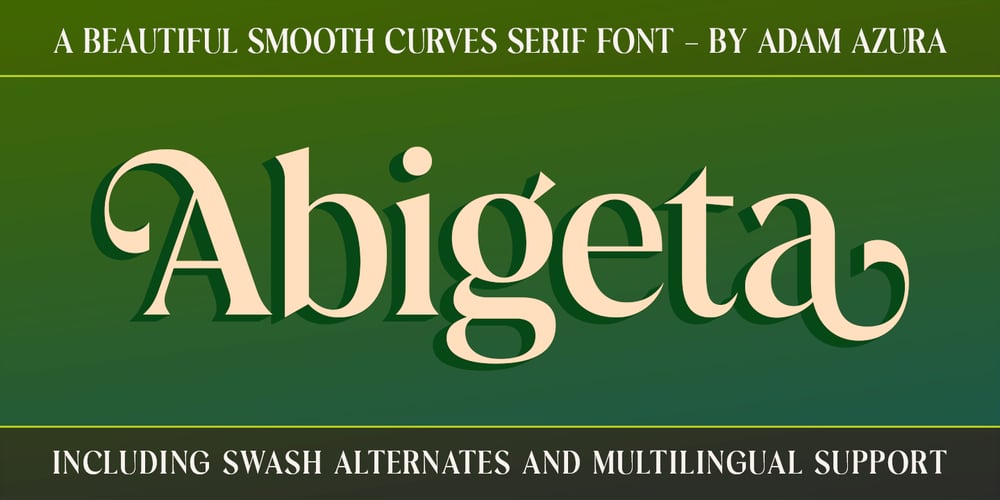
Abigeta Display
Abigeta Display font
Abigeta Display Font Family was designed by Rikie Decki Iskandar and published by Adam Azura. Abigeta Display contains 1 styles and family package options. Abigeta Display is sharp serif font with an elegant feel. Unique character by combining geometric shapes with organic curvy details. It is a unique typeface for your individual personality. Inspired by old-style serif and contemporary fonts. The extreme contrast between thick and thin strokes gives a harmonic and stylish look. Wide range of stylistic alternates allows versatile design options work perfectly for elegant branding, magazine design, logo design, headlines, posters, packaging, cards or your wedding invitation and more.Features:* Character set A-Z with special uppercase letters* Ligatures* Stylistic Alternates* Numerals & Punctuation* Multilingual SupportThis font is encoded with Unicode PUA, which allows full access to all additional characters without having special design software. Mac users can use Font Book, and Windows users can use Character Map to view and copy one of the extra characters to paste into your favorite text editor / application. We highly recommend using a program that supports OpenType features and Glyphs panels such as Adobe Illustrator, Adobe Photoshop CC, Adobe InDesign, or CorelDraw, so you can see and access all Glyph variations.